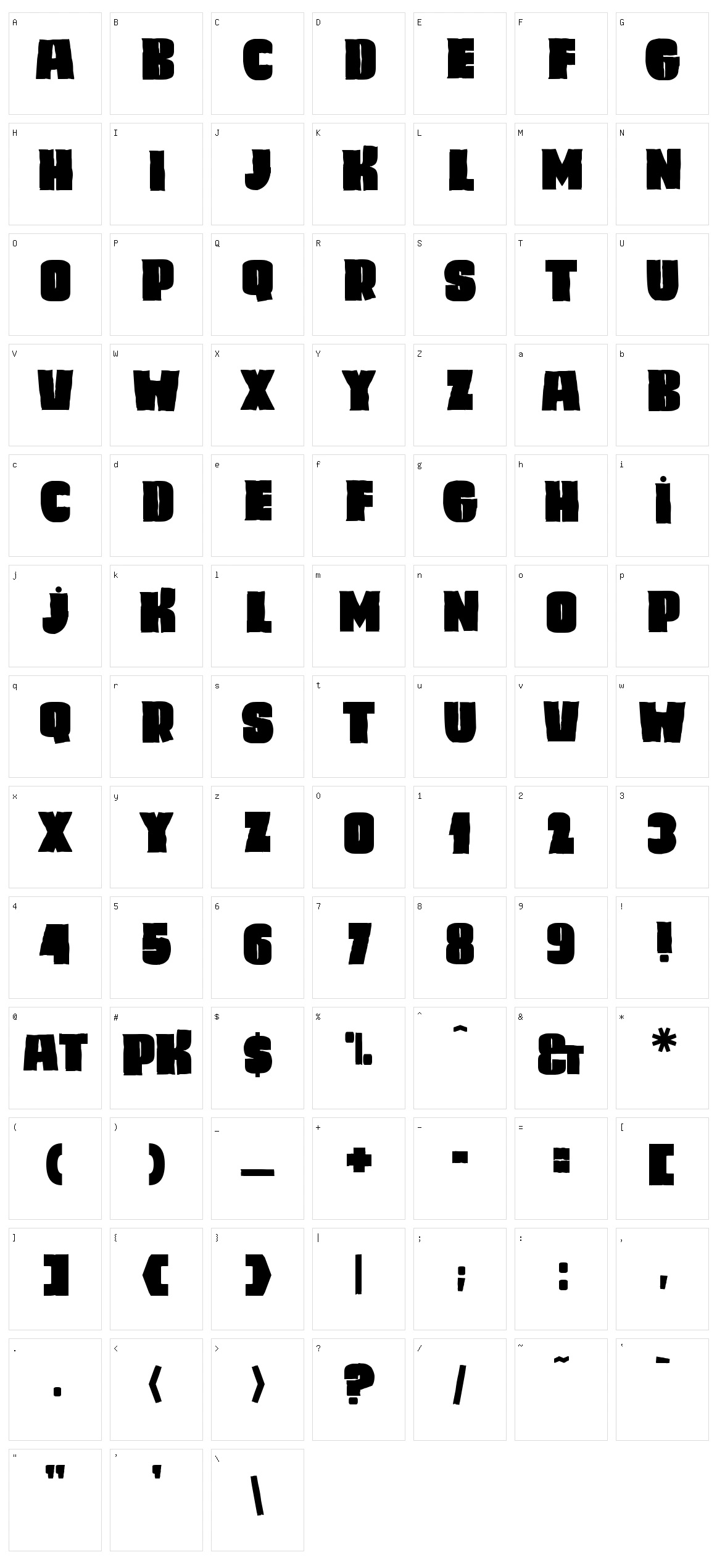
The free font Caligula is carefully designed by paintblack, showcasing a thoughtful balance of creativity and usability and falls under the Eroded font style. When you download the ZIP file, it contains only 105.14 KB of font files, making it lightweight and quick to download. Please review the license details below to understand permitted usage and distribution rights. If license information is not available, we recommend using this font for personal projects only or contacting the author directly for commercial usage permissions.
Caligula Font & Bad Caligula Font by Paintblack.